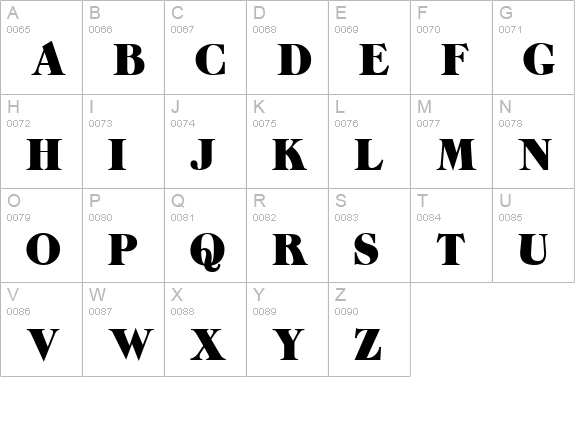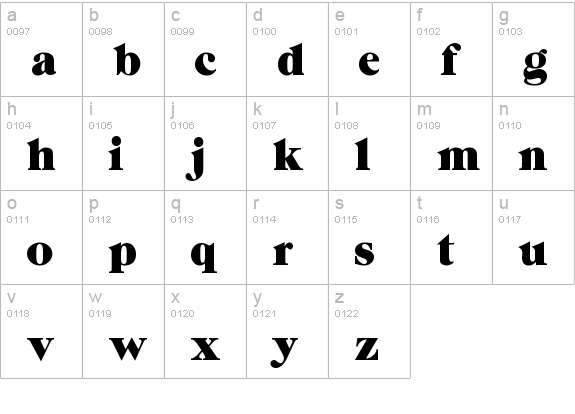
Grouch Regular is the standard, neutral variant in the Grouch typeface family \xE2\x80\x94 well suited to general body text, paragraphs, and standard typographic work.
Grouch Regular font is a versatile and modern typeface designed to bring a touch of edginess to your projects. With its unique blend of sharp angles and sleek curves, Grouch Regular is perfect for creating eye-catching designs that stand out from the crowd. Whether you're working on branding, advertising, or editorial projects, this font will add a fresh and contemporary vibe to your work. The best part? Grouch Regular is available for free download at FontsMarket.com. This means you can easily access this stylish font and incorporate it into your designs without any cost. Don't miss out on the opportunity to enhance your projects with the bold and dynamic Grouch Regular font. Download it today and let your creativity shine!